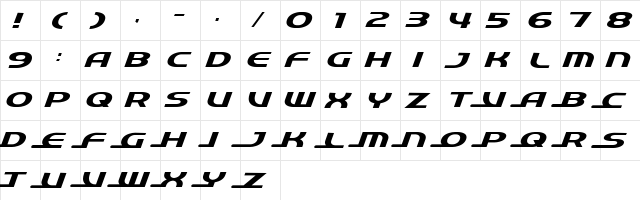
quick express
Design Context for quick Typeface
quick is a composed and adaptable typeface that performs quietly and consistently across a wide range of design contexts.